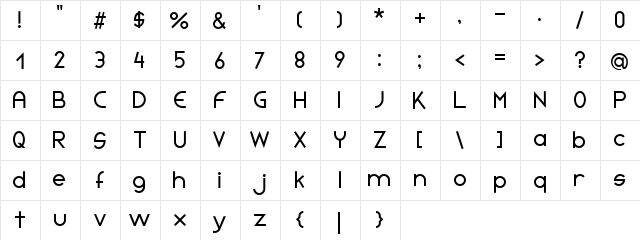
Initia Sans Regular
| Designer | Fakhruddin Kagzi |
Design Context for Initia Sans Typeface
Initia Sans is a composed and adaptable typeface that performs quietly and consistently across a wide range of design contexts.